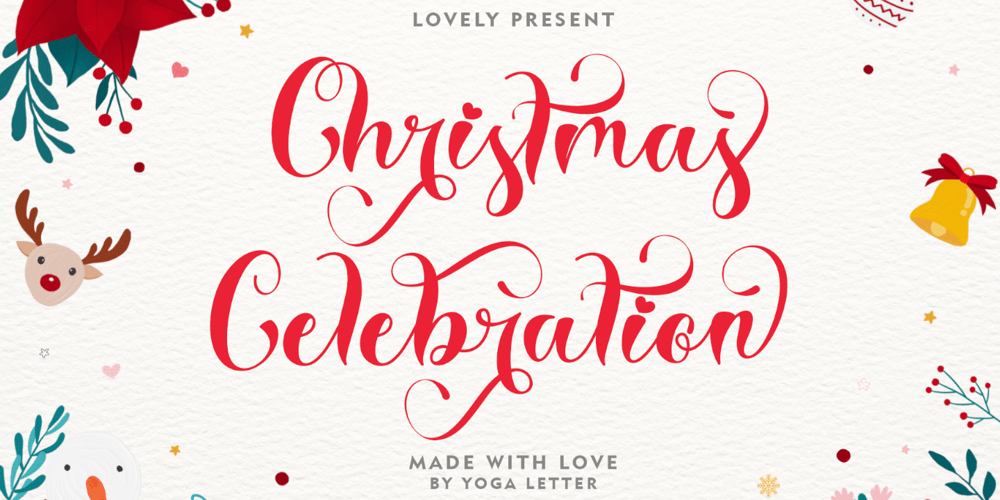
Christmas Celebration
Christmas Celebration font
Christmas Celebration Font Family was designed by Isroni Yoga Prasetya and published by Yoga Letter. Christmas Celebration contains 1 styles and family package options. “Christmas Celebration” is a beautiful and unique handwritten font. This font features uppercase, lowercase alternative, swashes, titling, multilingual support, binders, numbers, and punctuation. great for Christmas, weddings, invitations, promotions, social media, and more.